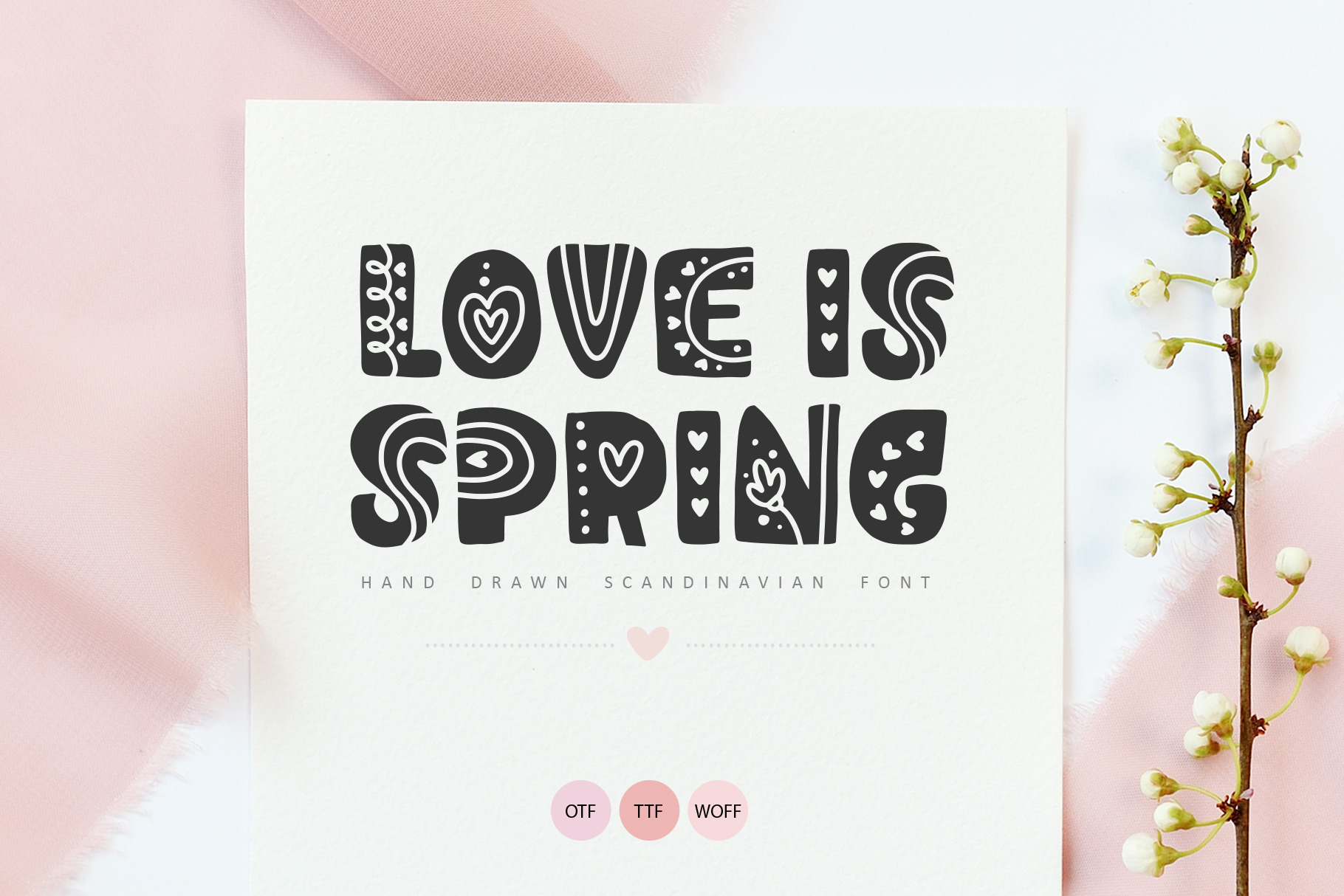
Love Is Spring Hand Drawn Font includes unique letters with flourish monoline heart and swirls insert. It's fine for wedding or Valentines ornament greeting cards, logo, invitations, etc. Elegant ethnic calligraphic lines give romantic freshness to your handmade design.
PERFECT FOR
Decorate your albums, wedding and holiday greeting cards (Birthday, Valentine's Day, Mothers Day Father Day, Christmas and other holidays), logos, gift shops, nordic tag, social media, Instagram, Facebook, internet shops presentation.